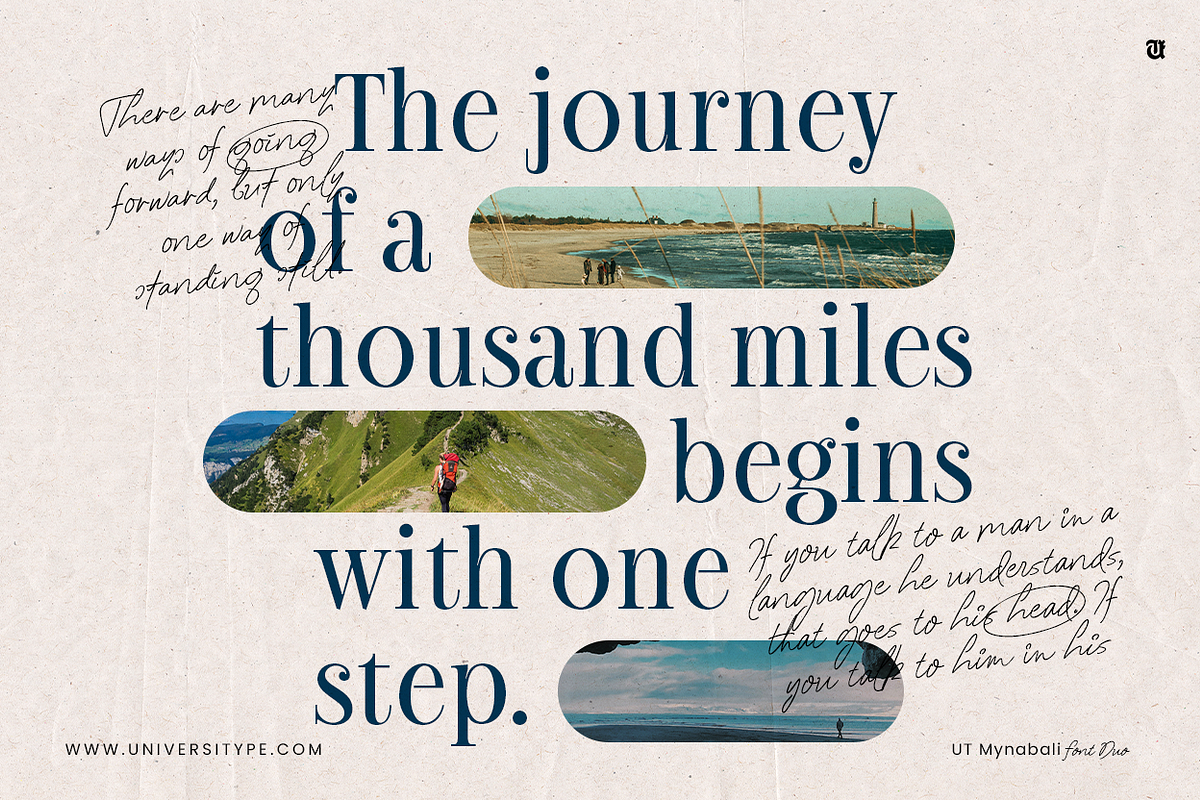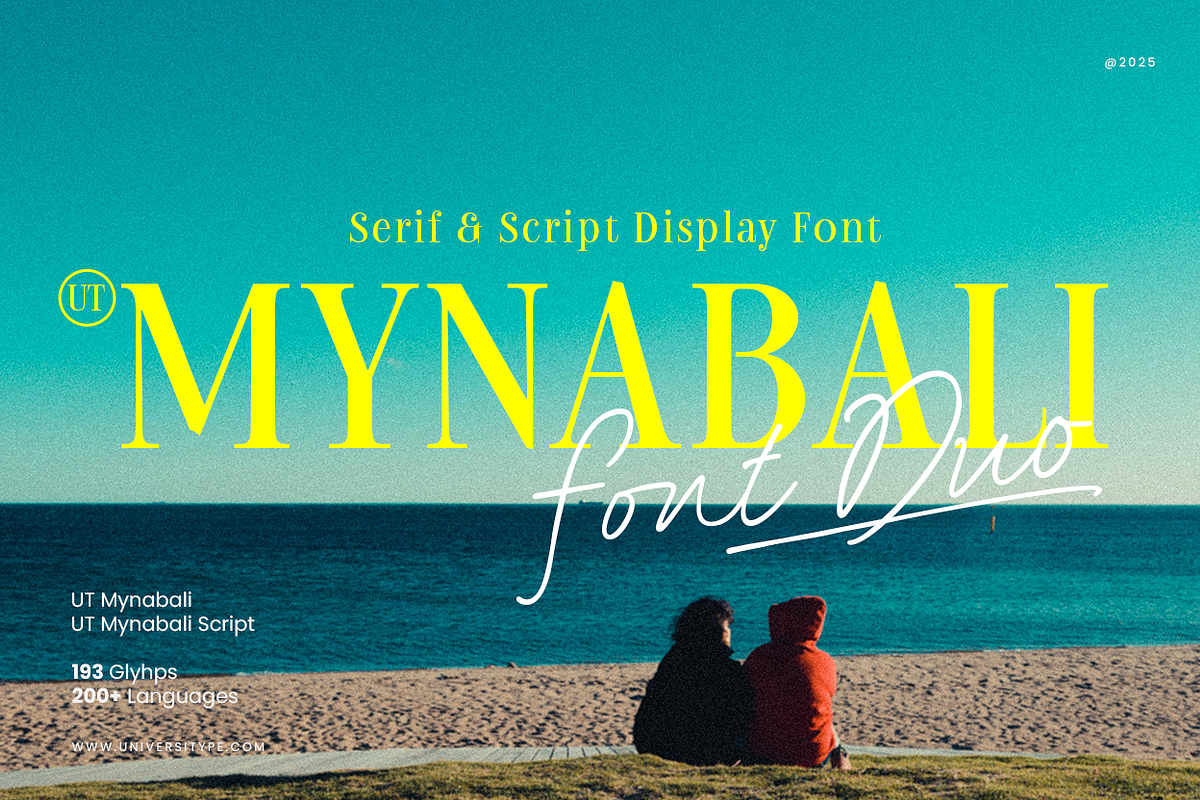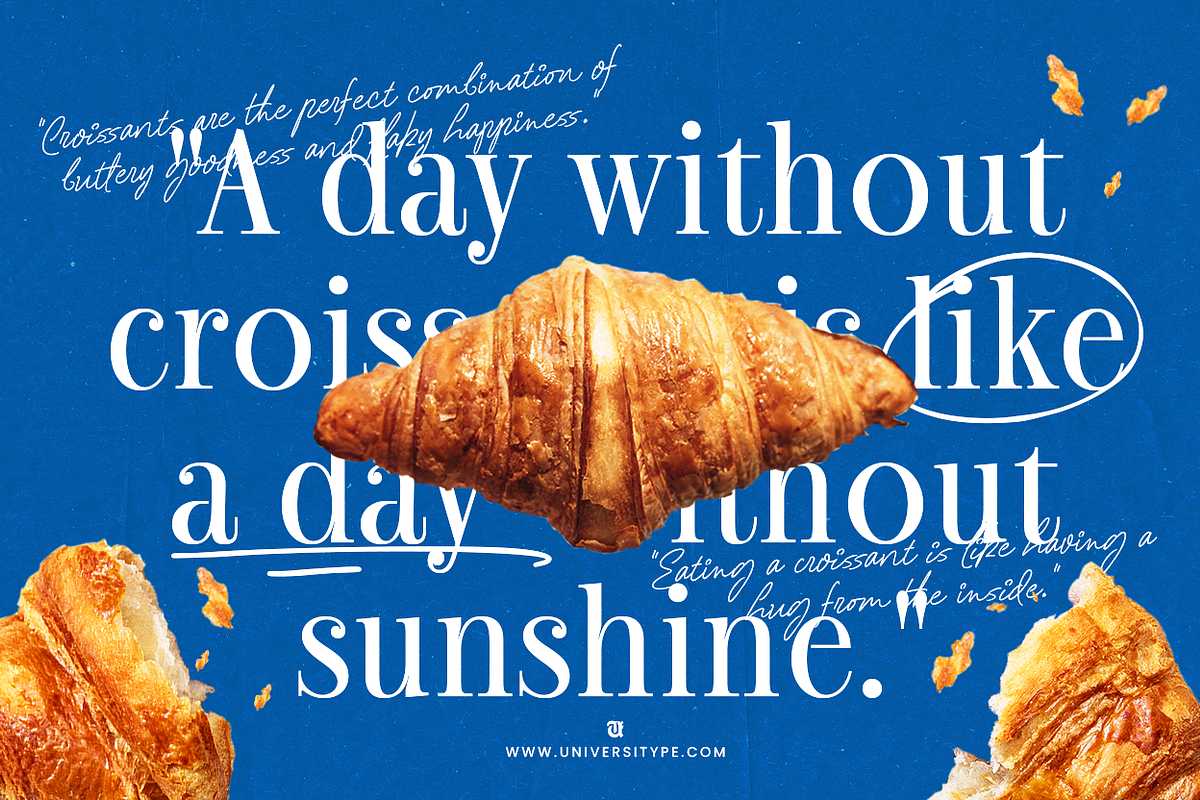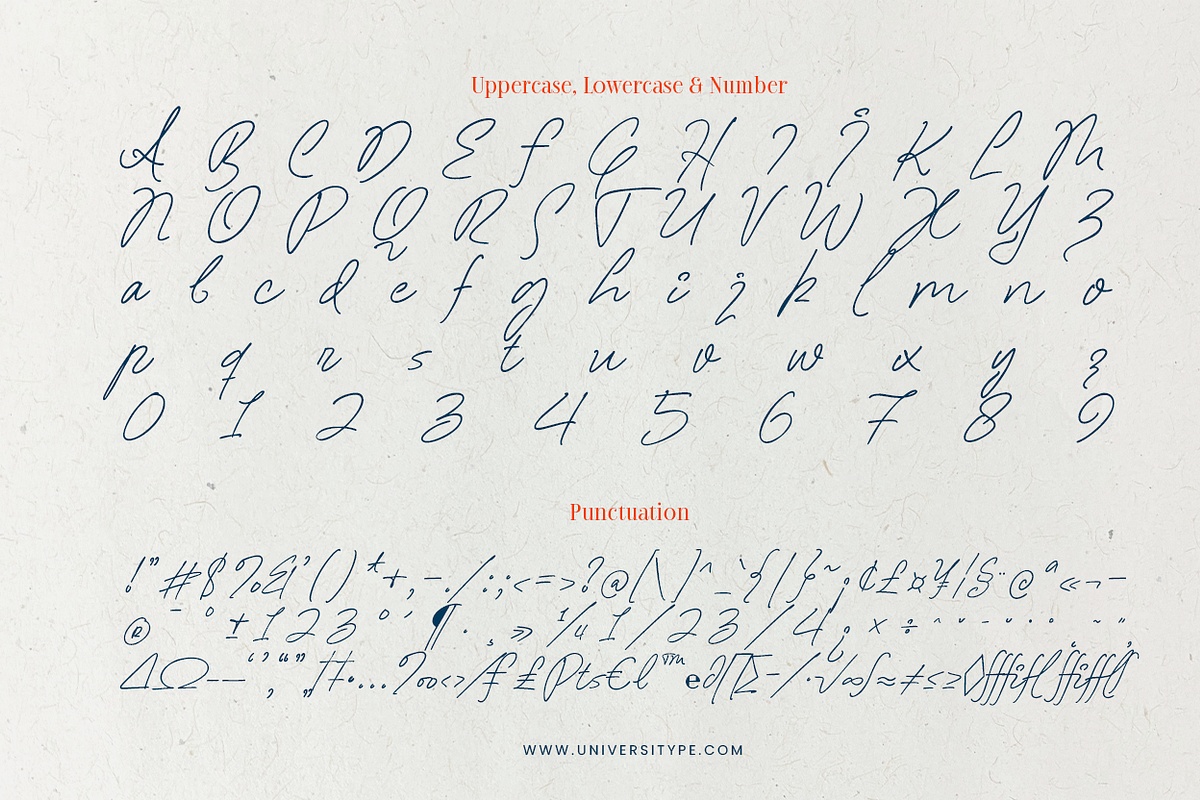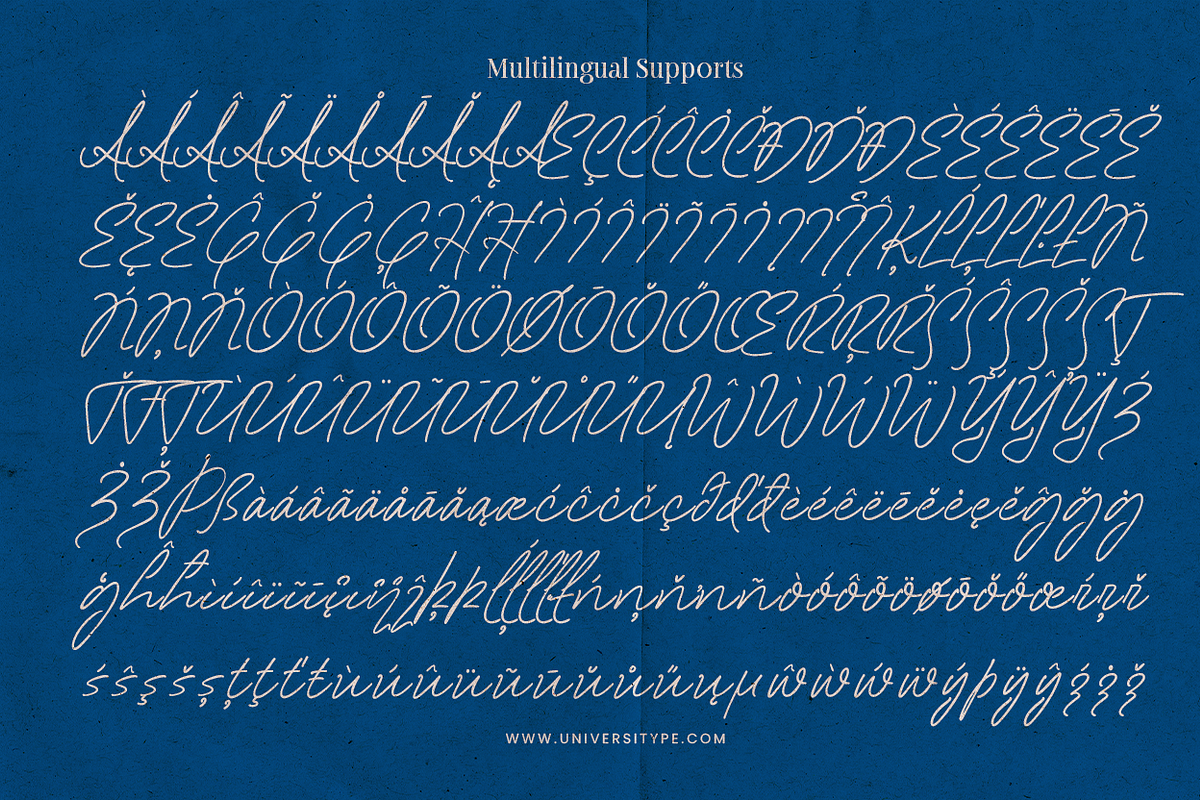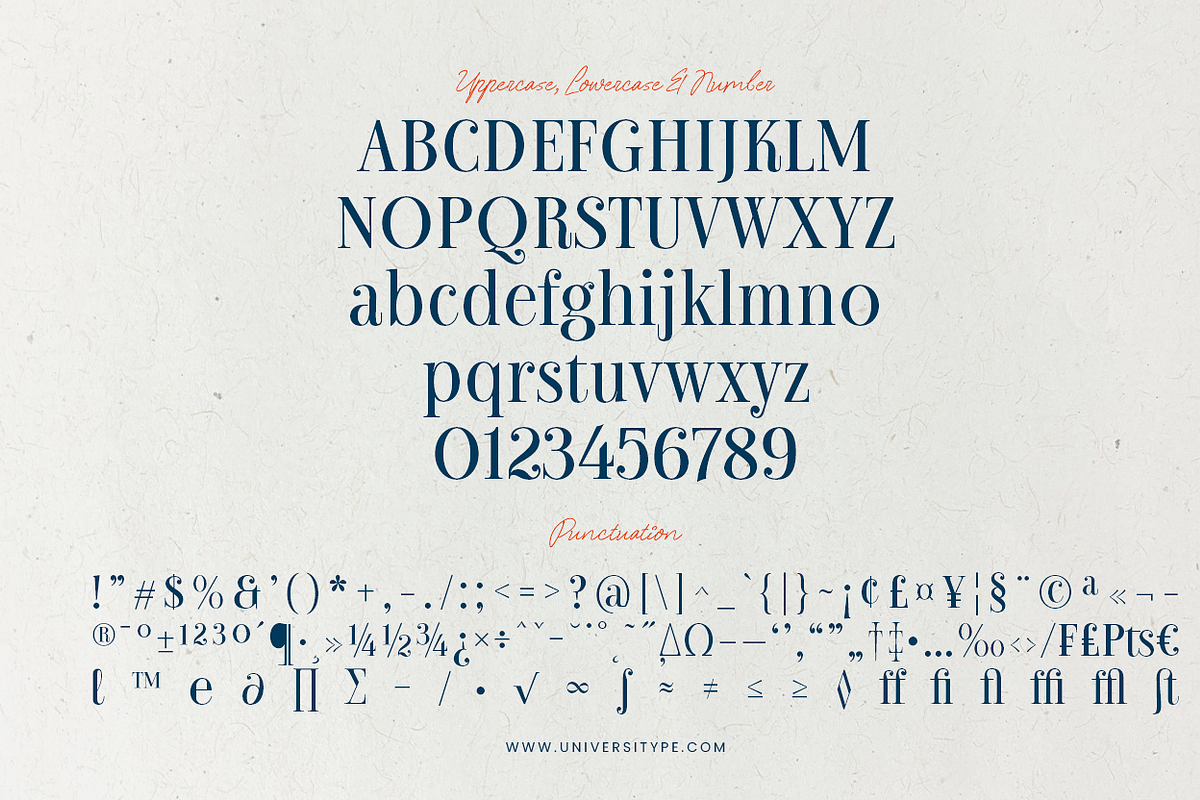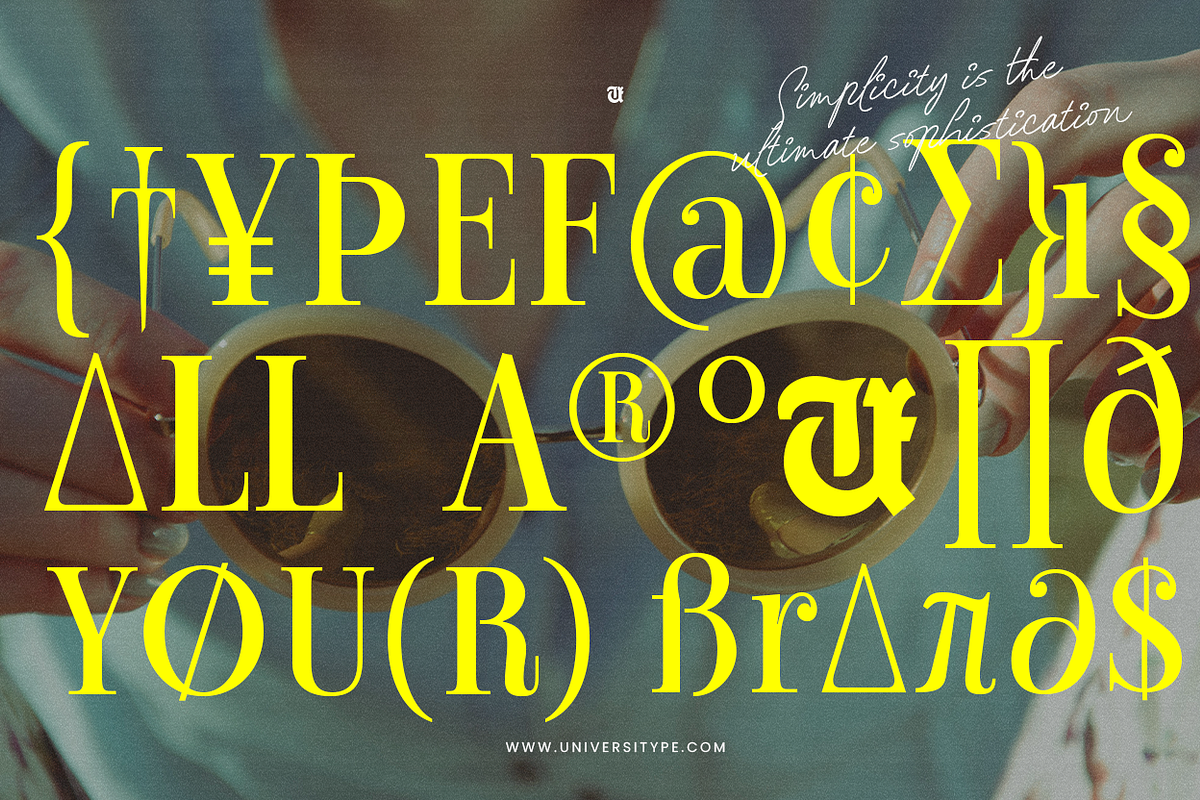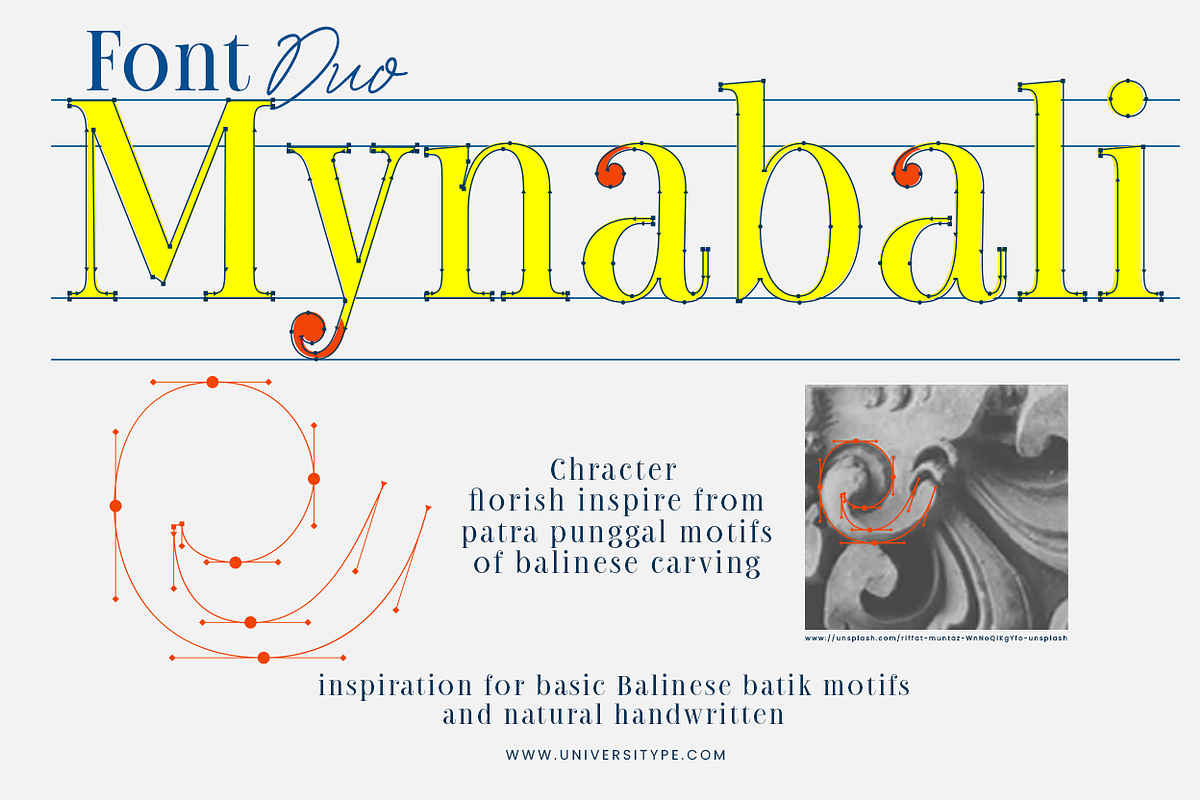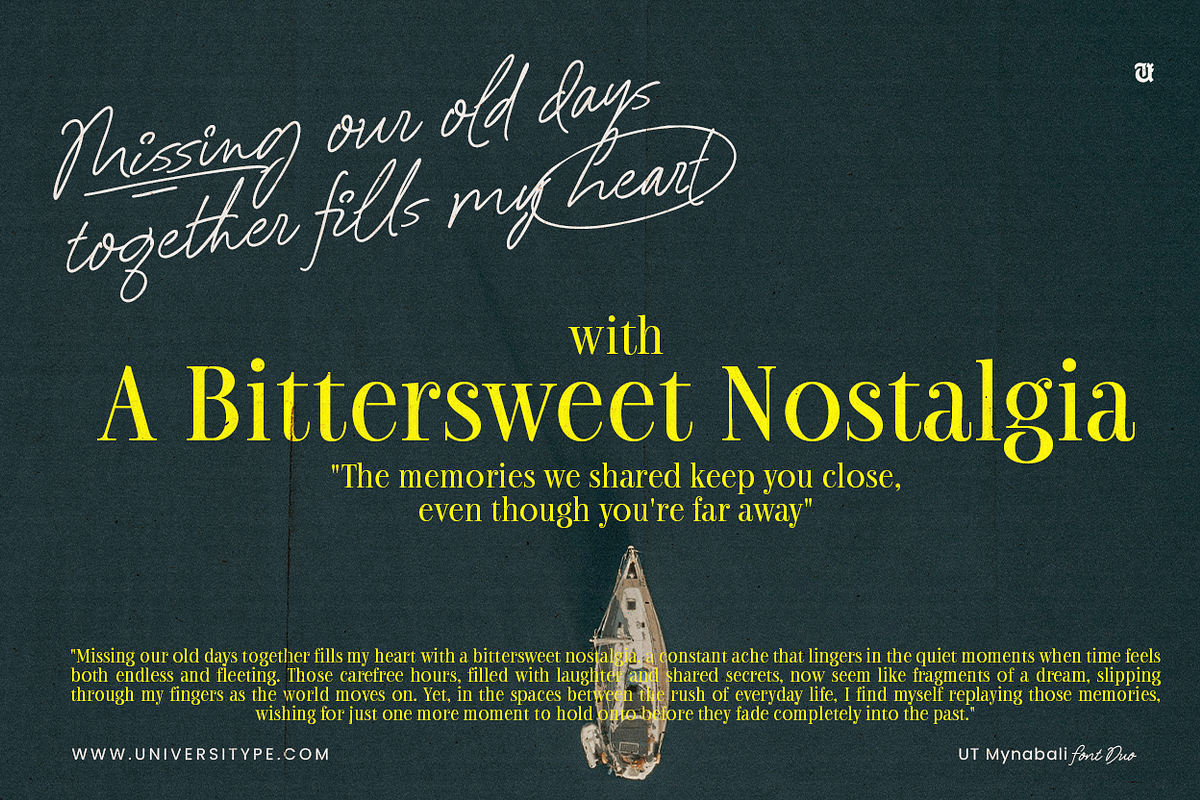
UT Mynabali Font Duo
UT Mynabali Font Duo – Inspired by the rich artistry of Balinese culture
UT Mynabali Font Duo is where classic elegance meets natural charm. This typeface set combines a refined serif with a fluid, expressive script, creating a perfect harmony of sophistication and warmth. Inspired by the rich artistry of Balinese culture, it brings a sense of tradition while feeling fresh and contemporary. Whether you’re designing a high-end brand, an editorial layout, or elegant invitations, UT Mynabali gives your work a distinctive and timeless voice.
Target Audience
- Designers looking for a versatile font duo that balances structure and fluidity
- Luxury brands, fashion labels, and boutique businesses
- Wedding and event planners who want a refined yet personal touch
- Editorial designers, book cover artists, and magazine creatives
- Anyone who loves type that feels both sophisticated and organic
- Serif & Script Duo: A striking serif with sculpted details pairs beautifully with a handwritten script full of personality
- Elegant Ligatures & Stylistic Alternates: Add flair and uniqueness to your typography
- Multilingual Support: Covers a range of Latin-based languages
- Timeless & Versatile: Works seamlessly for branding, packaging, print, and digital projects
Inspiration Behind the Design :
Mynabali draws from patra punggal, a Balinese carving motif known for its intricate yet harmonious details. The serif reflects the structure and grace of temple engravings, while the script captures the fluidity of handwritten artistry found in ceremonial calligraphy. It’s a blend of precision and spontaneity—designed to bring depth and character to any project.
Usage Suggestions
- Branding & Logos – Ideal for luxury, fashion, beauty, and boutique brands
- Editorial Design – Perfect for magazines, book covers, and high-end layouts
- Wedding & Event Invitations – Adds a touch of refinement and personality
- Packaging & Labels – Works beautifully on product branding, from perfumes to artisanal goods
- Social Media & Websites – Enhances visual storytelling with elegance and charm
- Features: Ligatures, stylistic alternates, dingbats, multilingual support
Elevate your design with the graceful balance of UT Mynabali Font Duo—because typography should feel as beautiful as it looks.